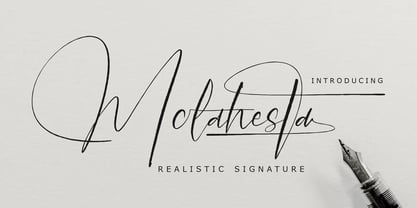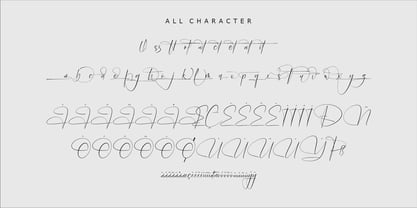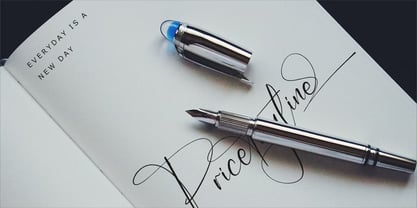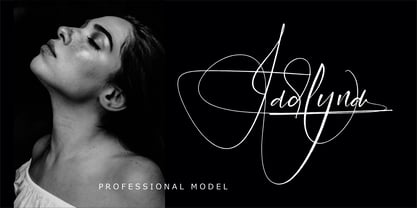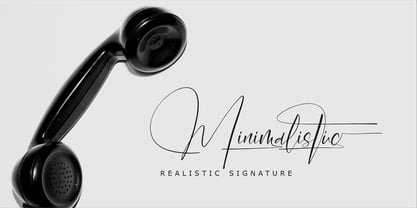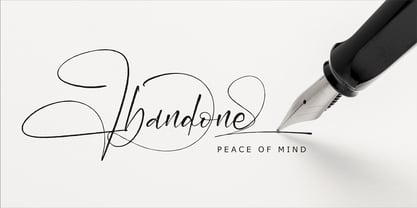
Molahesta
by Letterena Studios
The Molahesta Font Family was designed by Heru Utama Putra and published by Letterena Studios. Molahesta contains 1 styles.
Molahesta is a stylish signature script font. No matter the topic, this font will be an incredible asset to your fonts' library, as it has the potential to elevate any creation.